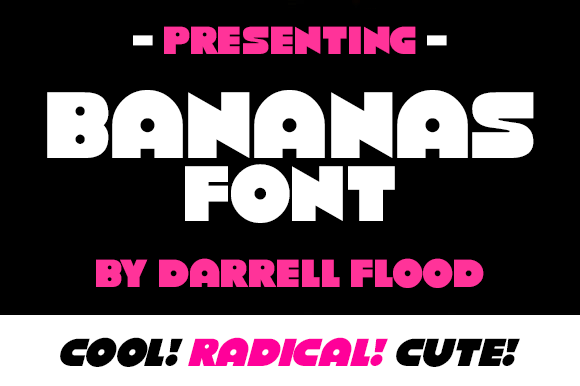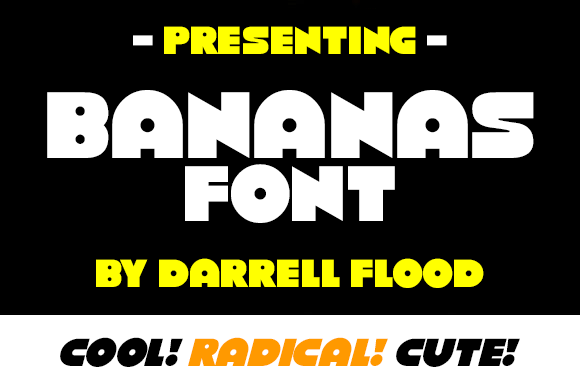
Bananas Font: The Playful, Energetic Sans-Serif Font for Creative Projects
Are you looking for a font that can add a touch of playfulness and energy to your creative projects? Look no further than Bananas Font! This chunky sans-serif font is designed to make a statement, with its unique combination of circles and sharp angles that create a high visual impact. In this article, we’ll explore the features and benefits of Bananas Font, and show you how it can be used to elevate your designs, from comics to animation to album covers.
What is Bananas Font?
Bananas Font is a sans-serif font that is characterized by its bold, chunky lines and playful style. The font features a unique blend of circular and angular shapes, which gives it a distinctive and eye-catching appearance. The font is designed to be highly legible, even at large sizes, making it perfect for use in a variety of creative projects.
Key Features of Bananas Font
• Chunky sans-serif design: Bananas Font features a bold, chunky design that is perfect for making a statement.
• Playful and energetic style: The font’s playful and energetic style makes it perfect for use in creative projects that require a fun and youthful vibe.
• Circles and sharp angles: The font’s unique combination of circles and sharp angles creates a high visual impact that is sure to grab attention.
• Highly legible: Despite its bold design, Bananas Font is highly legible, even at large sizes.
Uses for Bananas Font
Bananas Font is a versatile font that can be used in a variety of creative projects, including:
• Comics: The font’s bold, playful design makes it perfect for use in comics and graphic novels.
• Animation: Bananas Font is a great choice for animation projects, such as cartoons and video games.
• Album covers: The font’s energetic and playful style makes it a great choice for use on album covers and music-related projects.
• Design and craft projects: Bananas Font can also be used in a variety of design and craft projects, such as scrapbooking, card making, and DIY crafts.
Benefits of Using Bananas Font
There are many benefits to using Bananas Font in your creative projects, including:
• Adds a playful touch: Bananas Font adds a playful and energetic touch to any project, making it perfect for creative and youthful designs.
• Highly versatile: The font can be used in a variety of creative projects, from comics to animation to album covers.
• Easy to read: Despite its bold design, Bananas Font is highly legible, making it easy to read even at large sizes.
• Unique and eye-catching: The font’s unique combination of circles and sharp angles creates a high visual impact that is sure to grab attention.
Tips for Using Bananas Font
Here are a few tips for using Bananas Font in your creative projects:
• Use it boldly: Bananas Font is designed to make a statement, so don’t be afraid to use it boldly and at large sizes.
• Experiment with colors: The font looks great in a variety of colors, so experiment with different colors to find the one that works best for your project.
• Pair it with other fonts: Bananas Font can be paired with other fonts to create a unique and interesting design.
Font Name Bananas Font
Author Dadiomouse
Bananas Font is a playful, energetic sans-serif font that is perfect for creative projects that require a fun and youthful vibe. With its unique combination of circles and sharp angles, the font creates a high visual impact that is sure to grab attention. Whether you’re working on a comic, animation project, album cover, or design and craft project, Bananas Font is a great choice. So why not give it a try and see how it can add a playful touch to your designs?